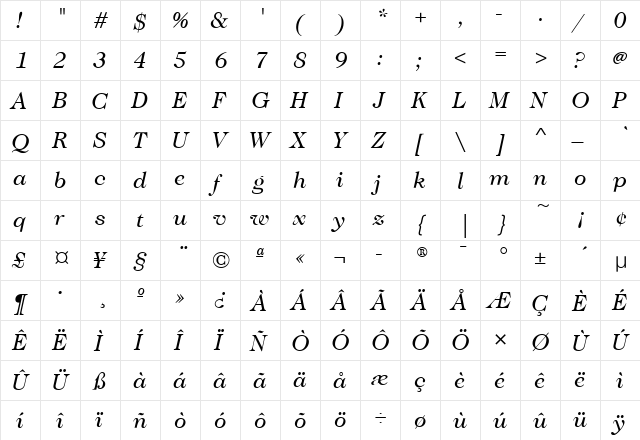
CaslonTwoTweFourITC Italic
Design Context for CaslonTwoTweFourITC Typeface
CaslonTwoTweFourITC takes a measured approach to typography — its balanced proportions and neutral character make it a reliable workhorse for both digital and print work. Its italic angle brings a sense of urgency and motion to the letterforms.
Pro Tip: Try CaslonTwoTweFourITC for annotation and caption copy alongside an upright companion — the contrast in angle creates a dynamic but ordered typographic system.